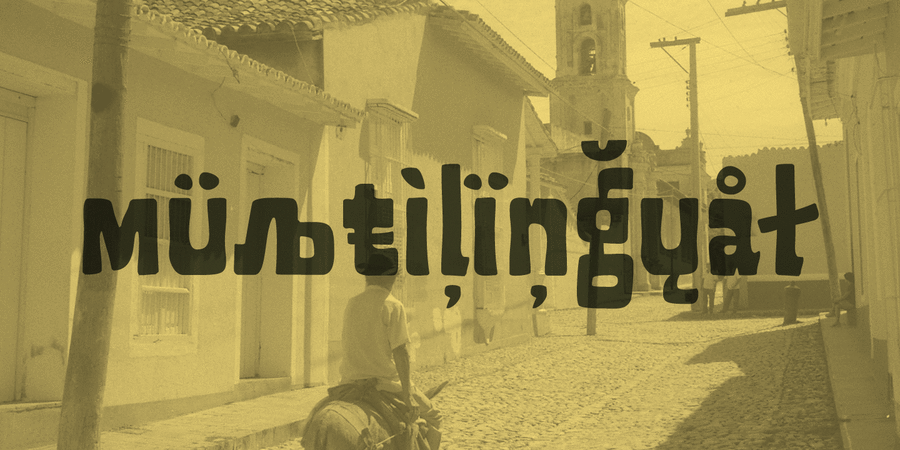
Cubynets 4F (1 font)
Logo font pair with Poblano Regular (1 of 3)About Cubynets 4FThe Cubynets typeface has a rough but friendly mood. It's perfect for signage, packaging, and posters. Looking at it makes you want to put on a hat and light a cigar. The typeface was designed by Serhiy Tkachenko in 2014.
Associations for font family Cubynets 4FTypeface personality and character:
cowboy, old-fashioned, handicraft, farmer, craft brewed, stable, high-quality, good quality, independent, west, static, hot, severe, sultry, loud, wooden, southern, manly, macho, naive, rude, uncouth, friendly, funny, cool, man-made, witty, square, rectangular, cheerful, heavy, notable, splashy, close-fitting, slovenly, playful, original, cartoonish, alive, distinctive, uneven, idle, walking, fiery, criminal, tropical, Artisanal, vernacular, cinematic, incendiary
stable, cinema, Western films, saloon, whiskey, tequila, sombrero, alcohol, cigars, tourism, team, saddle, farm, cart, sheriff, ranch, inn, rodeo, horse, craft, blacksmith, meat, smithy, revolver, cowboy, pizza, humor, tobacco, handmade, children's book, animation, food, snack, attraction, circus, spice, game, pet shop, animals, recreation, Cartoon, dinner, bazaar, graphics, illustration, bull Typeface associated with age: